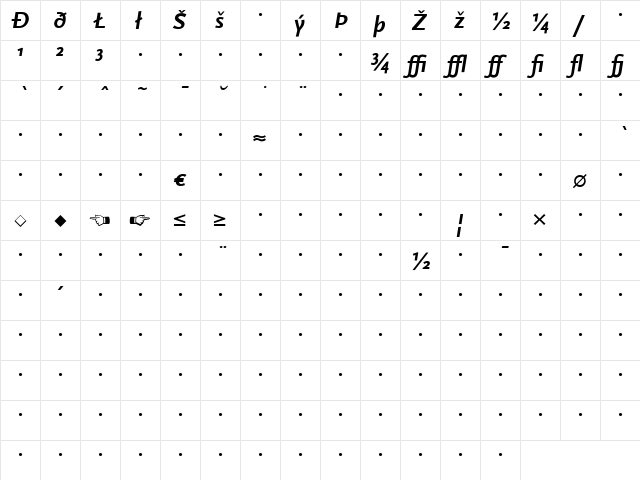
Scala Sans Bold Italic Font Preview
Scala Sans Bold Italic
Scala Sans Bold Italic Font Details
Design Context for Scala Sans Typeface
Scala Sans offers clean, dependable letterforms without strong stylistic allegiance, making it a practical choice for designers who need flexibility. The slanted form adds forward momentum and visual energy. The heavy weight commands attention and anchors typographic hierarchies.
Pro Tip: Use Scala Sans for emphasis, pull quotes, and subheadings where its slanted energy can add rhythm to the layout.